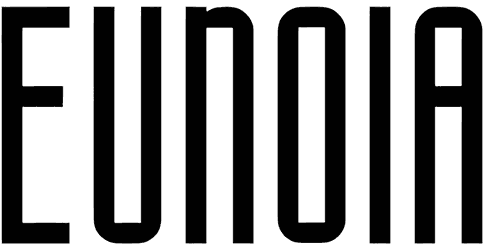
Eunoia Font
Designed byHuman Design
Modern font Eunoia manages to be both adorable and refined. This minimalist font is perfect for your next project, whether it’s a book, an invitation, a video, or a tattoo.